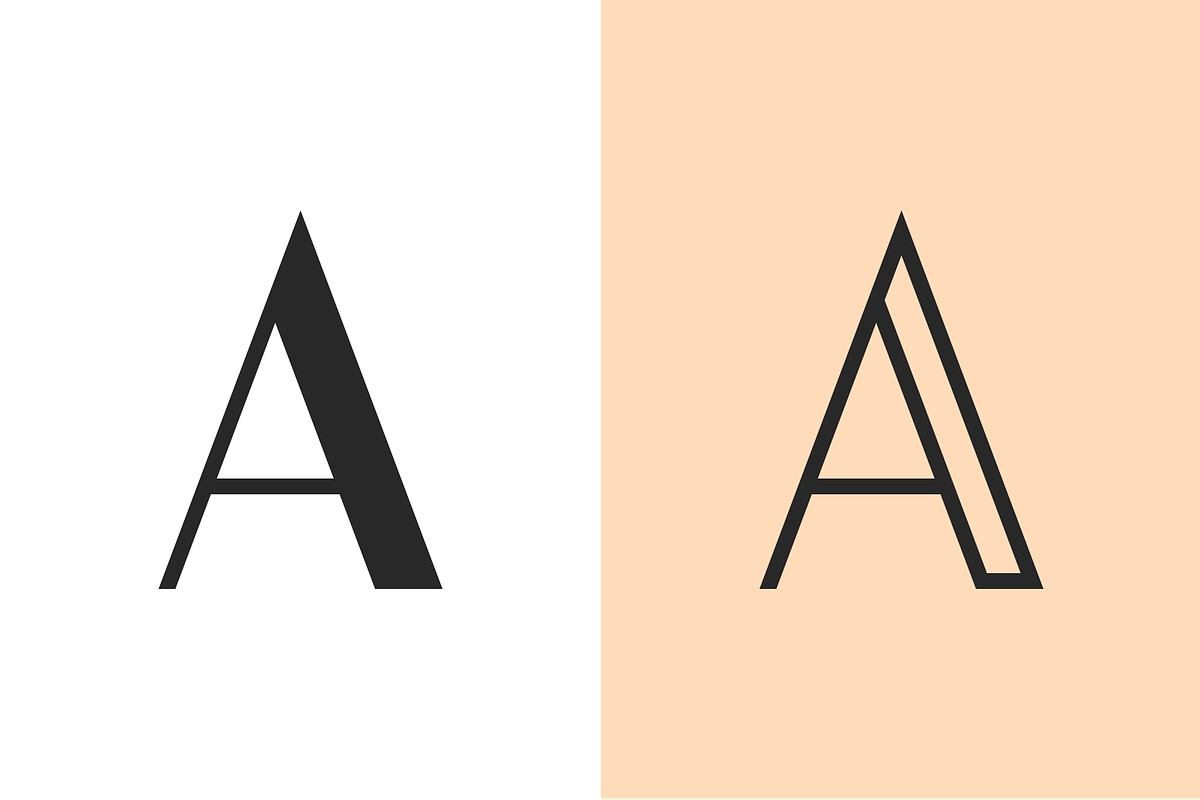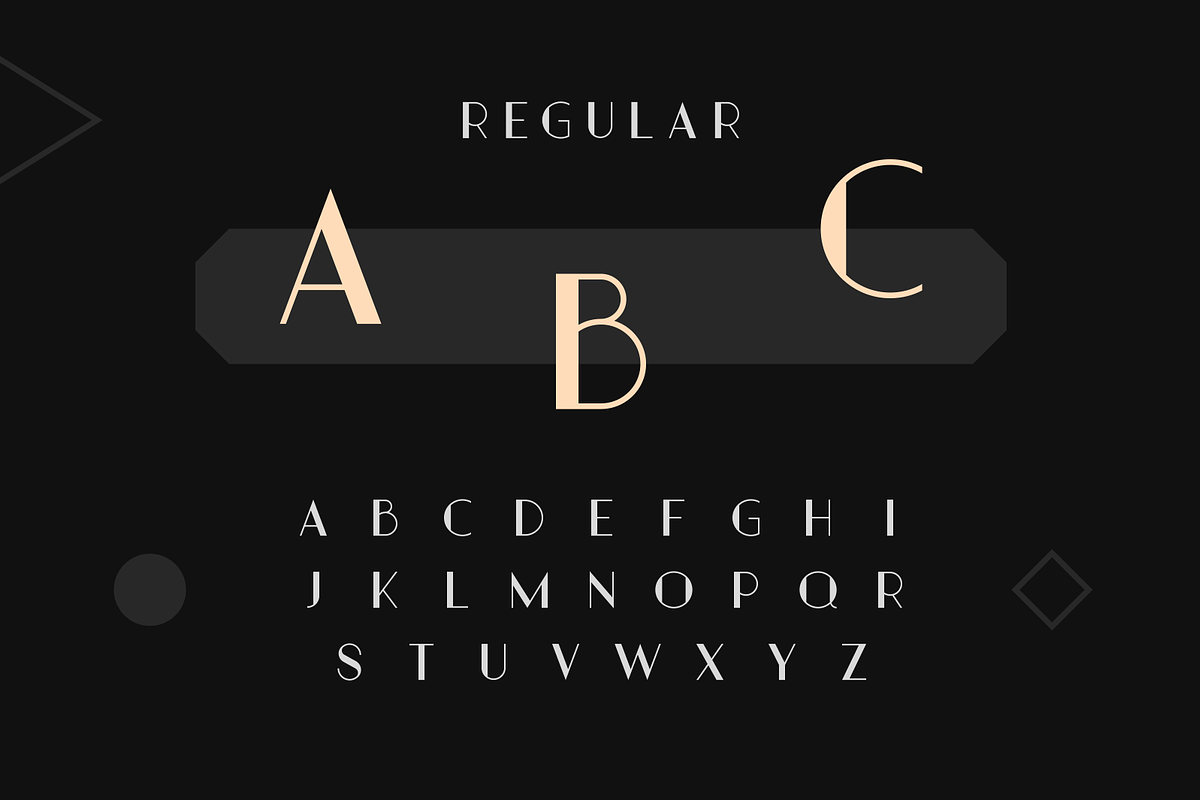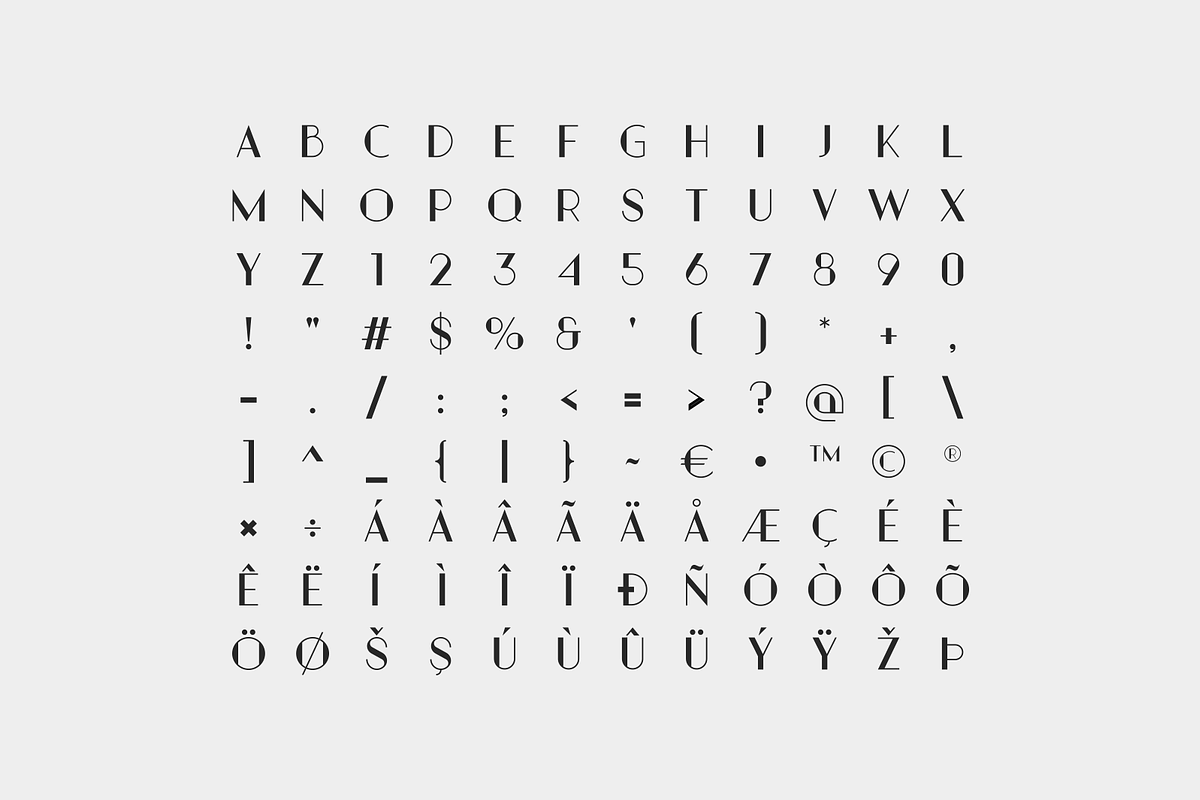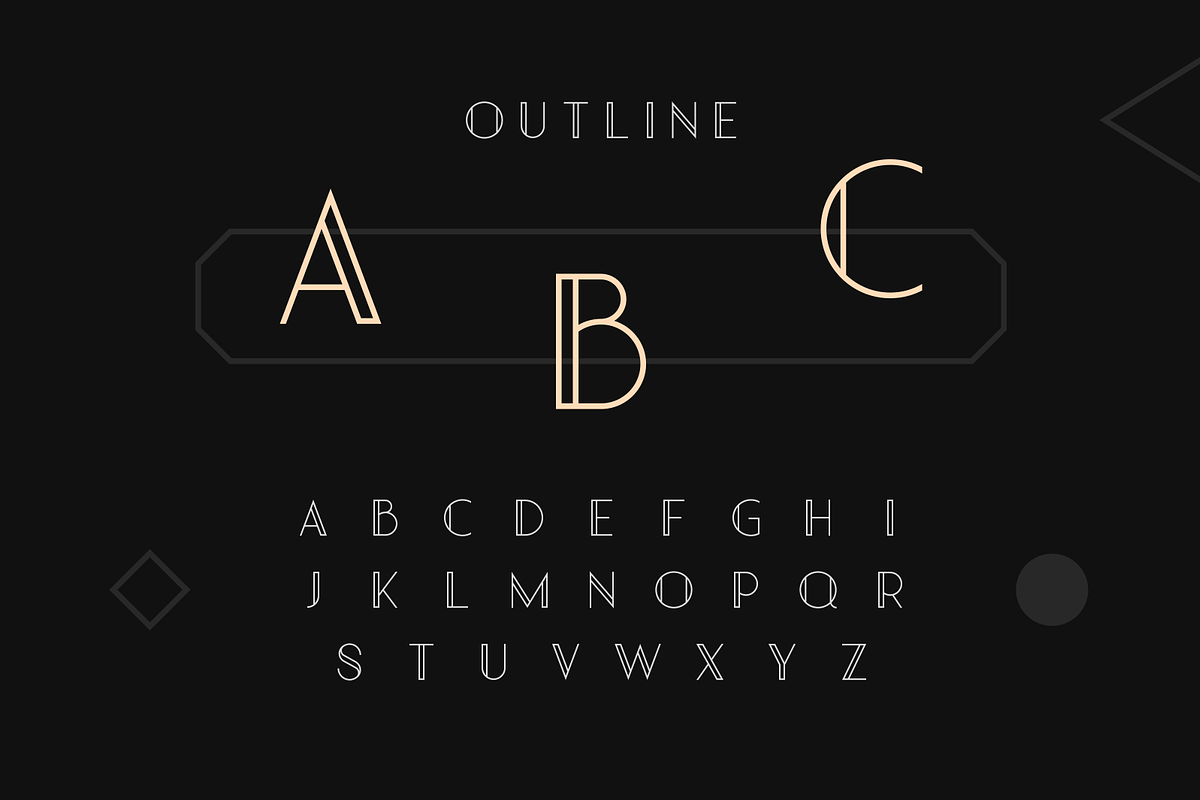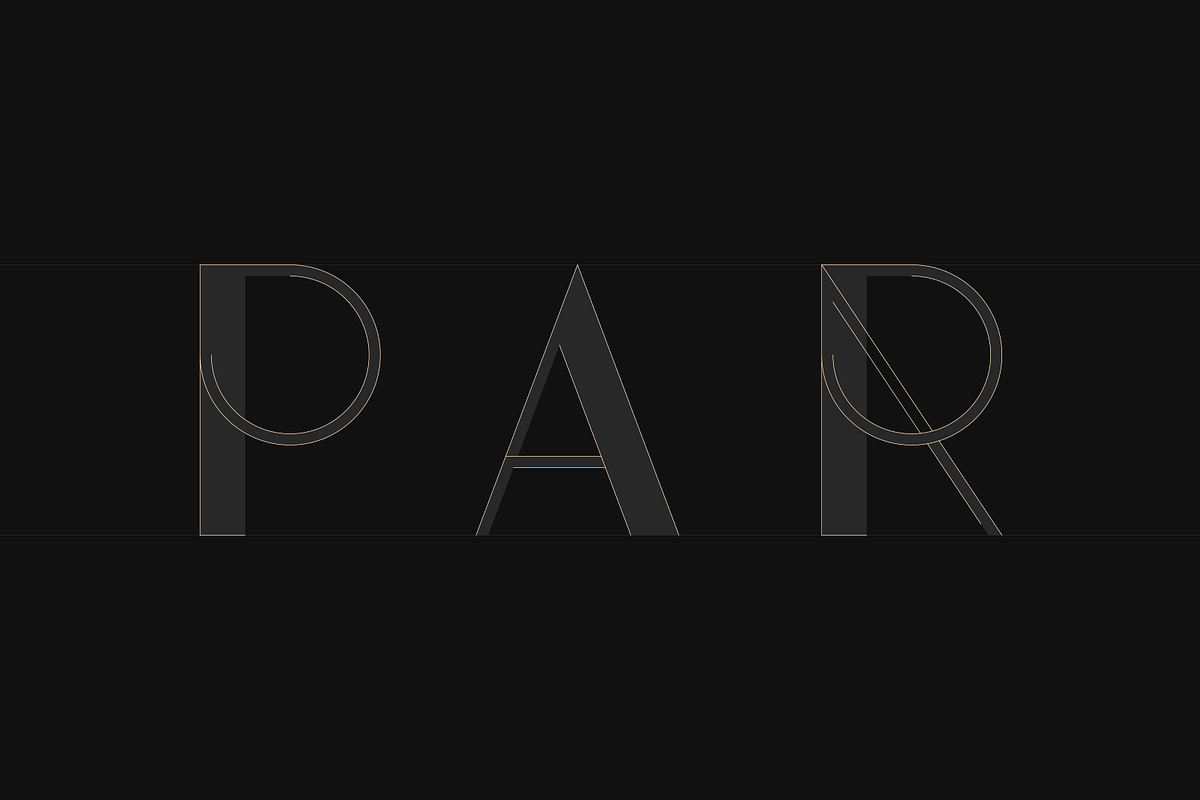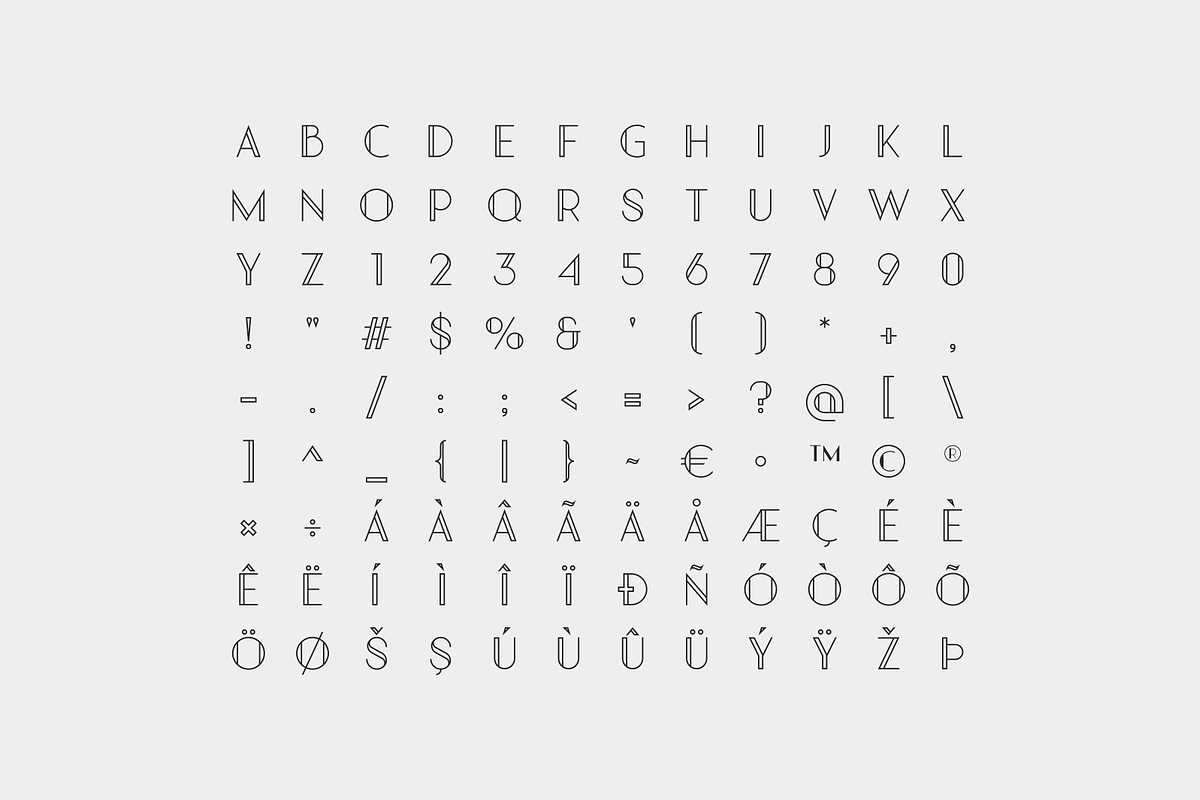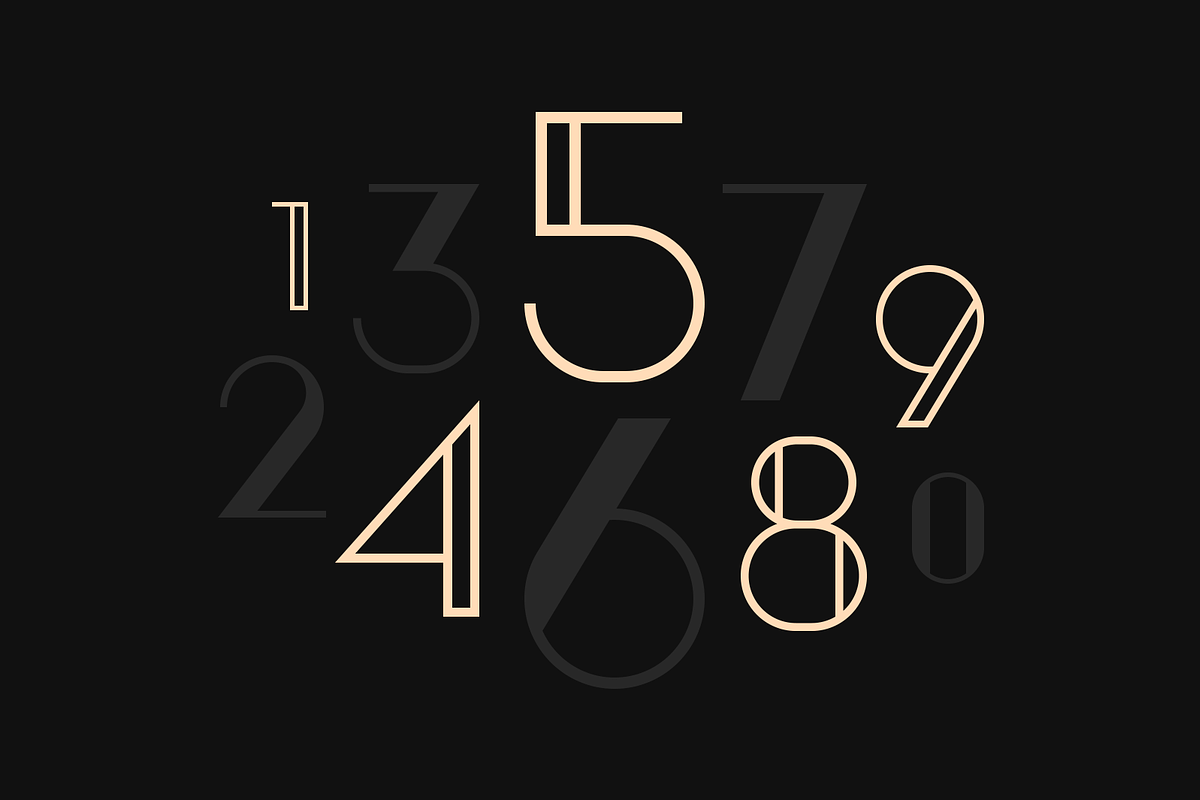
Partem Typeface
Partem is a versatile, elegant, geometric and multilingual display typeface. It is modern yet stylish which is great for display purpose such as logotype, poster, product packaging and headline as well. It features uppercase letters, numbers and punctuation.
- Partem Regular
- Partem Outline